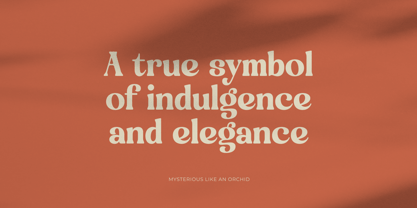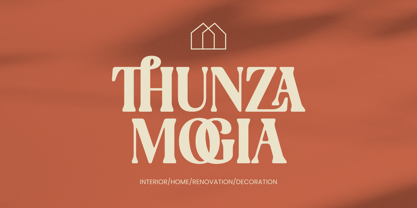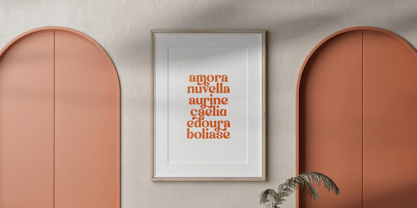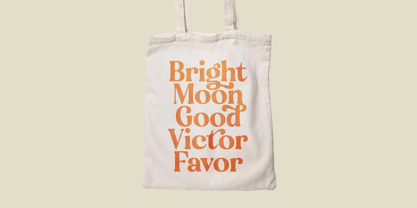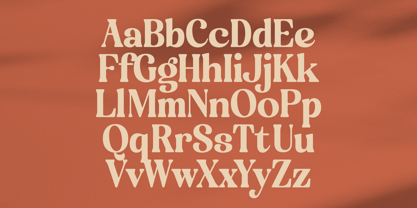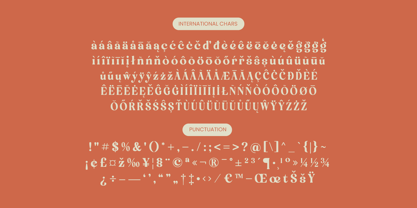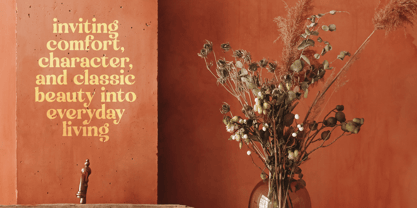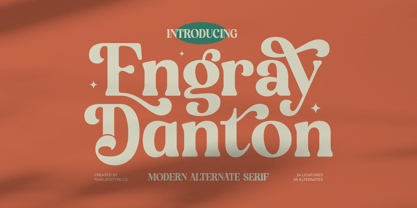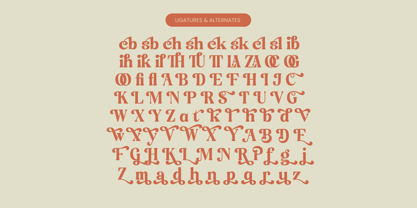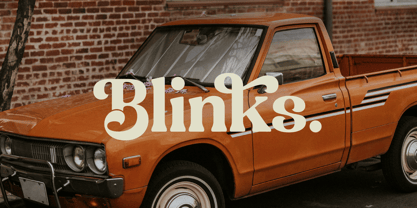
Engray Danton
The Engray Danton Font Family was designed by Heru Utama Putra and published by Timelesstype Studio. Engray Danton contains 2 styles and family package options.
Engray Danton - Modern Alternate Serif Font , from Timelesstype, Suitable for any projects such as: logos, branding projects, homeware designs, product packaging, mugs, quotes, posters, shopping bags, t-shirts, book covers, name card, invitation cards, greeting cards, label, photography, watermark, special events, and all your other luxury and beautiful projects that need a Luxury Serif taste.